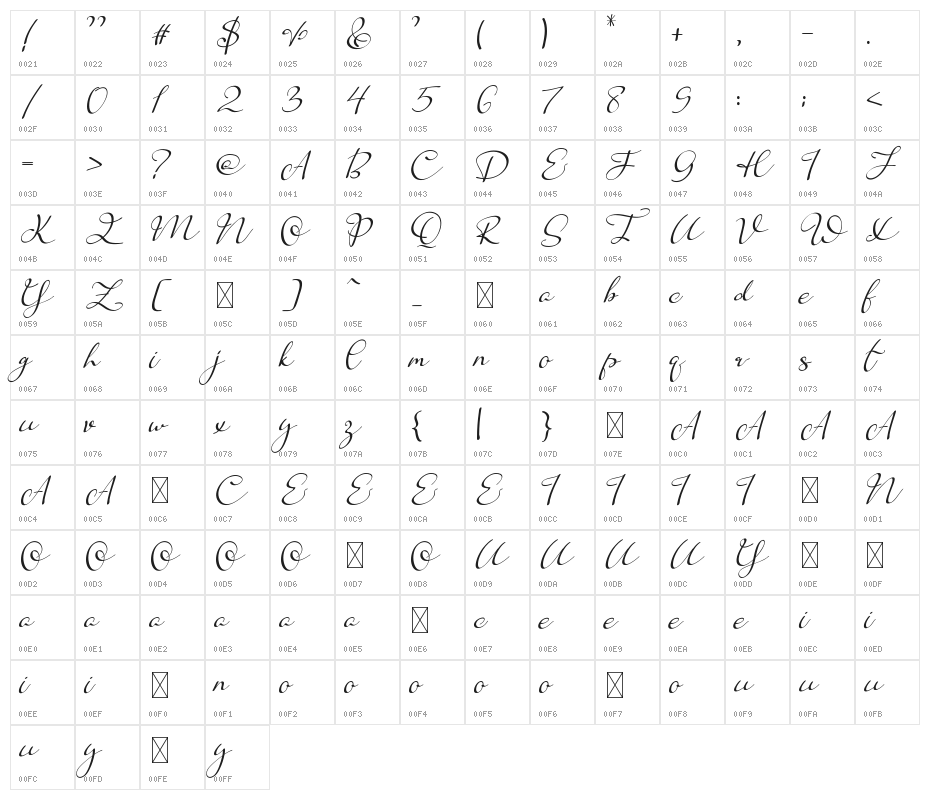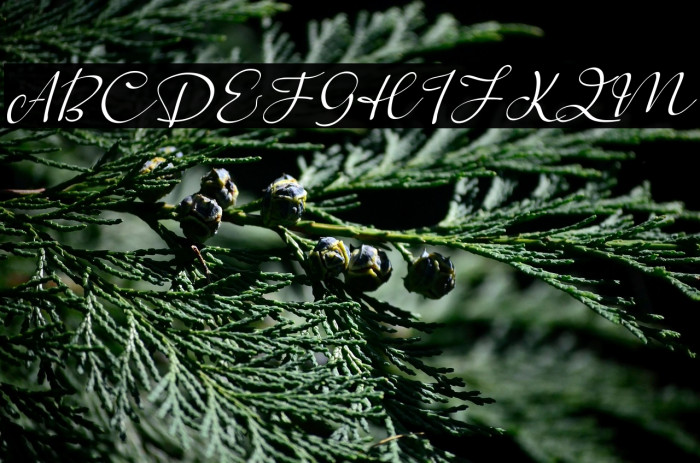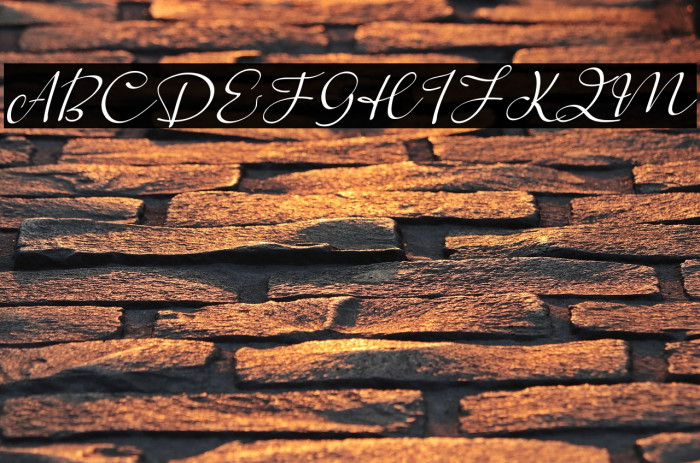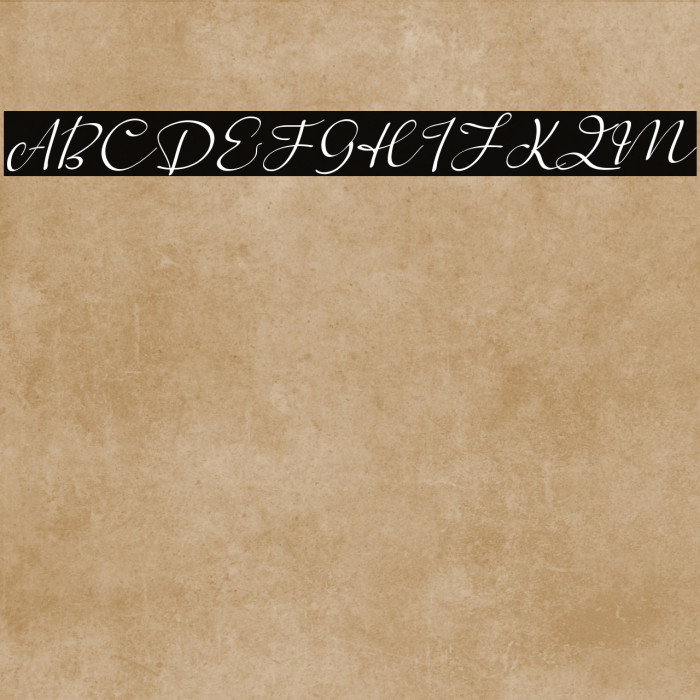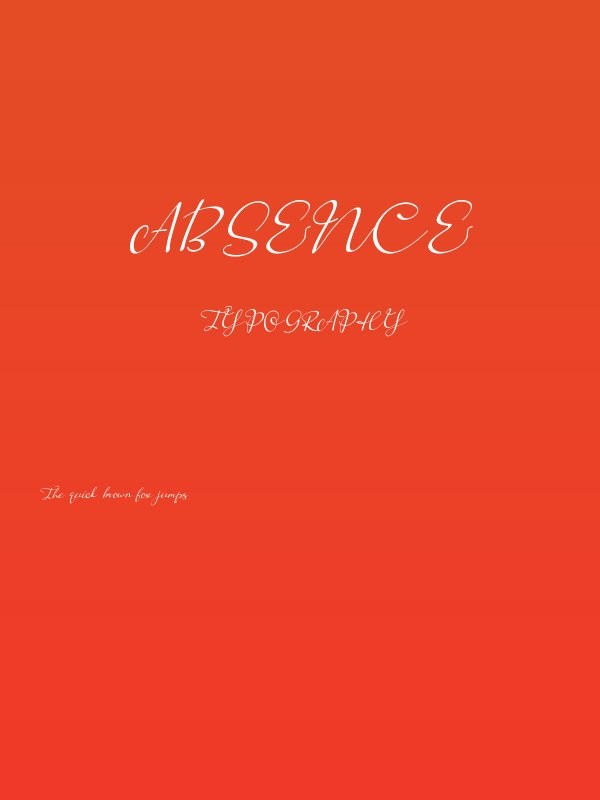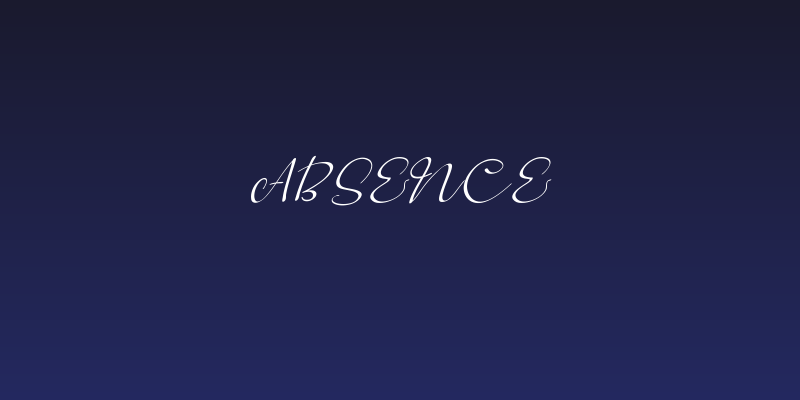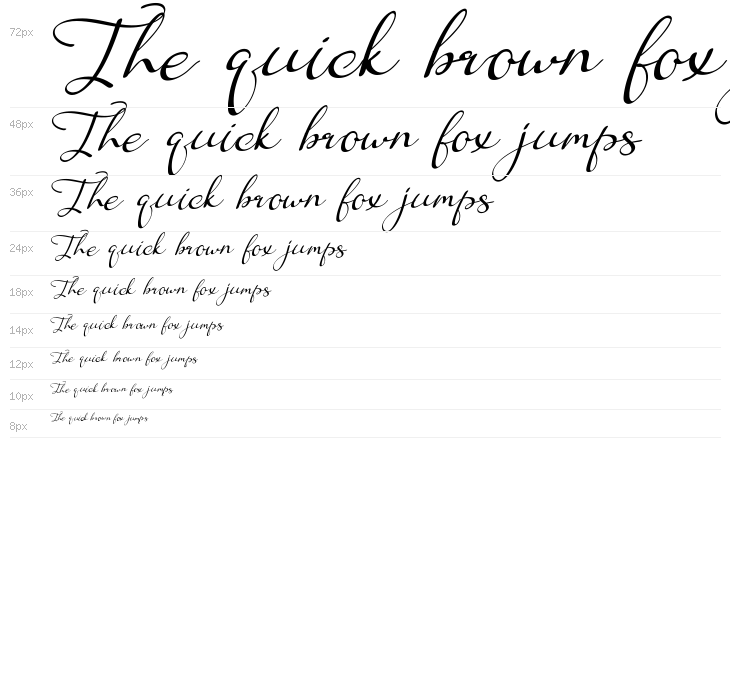
Absence Font
✎ Script
Absence Description
This elegant script font features fluid, cursive strokes that convey a sense of sophistication and grace. The uppercase letters are characterized by sweeping curves and flourishes, while the lowercase letters maintain a consistent flow with slightly exaggerated loops and tails. The numerals and special characters are designed to complement the overall style, maintaining the same fluidity and elegance. This font is ideal for projects that require a touch of class and refinement, such as wedding invitations, formal event programs, or luxury branding. Its artistic flair makes it suitable for decorative purposes, while still being legible enough for short passages of text.
| Overall Style | Elegant, Sophisticated |
| Use Case | Headlines, Logos, Invitations |
| Proposed Projects | Wedding invitations, formal event programs, luxury branding, decorative purposes. |